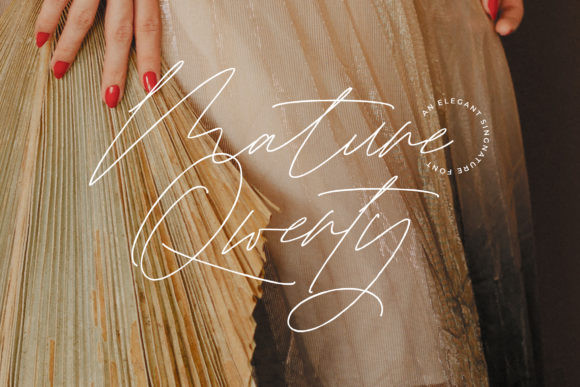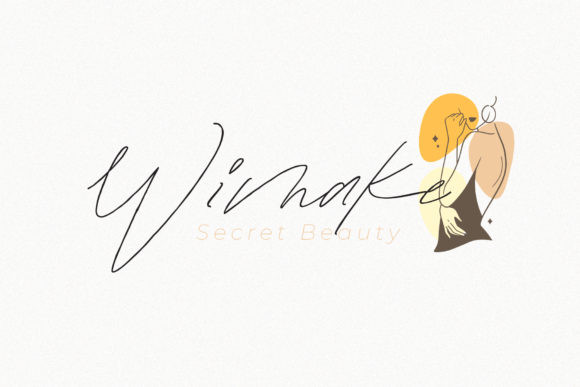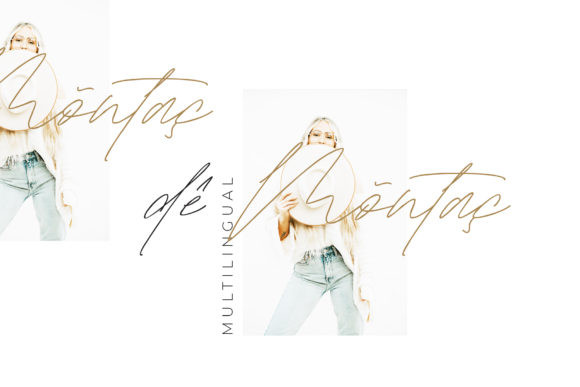
Mature Qwerty Font
Mature Qwerty is a stylish handwritten font created for signature lovers. Suitable for social media, Instagram, logos, websites, blogs, home decor, wedding decor, invitations, branding, business cards, and many more!